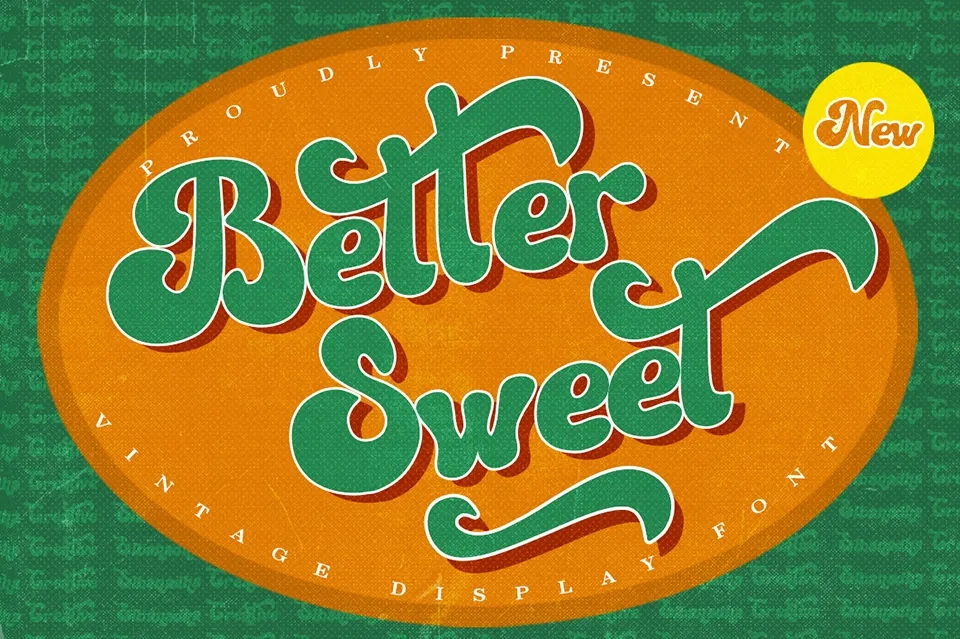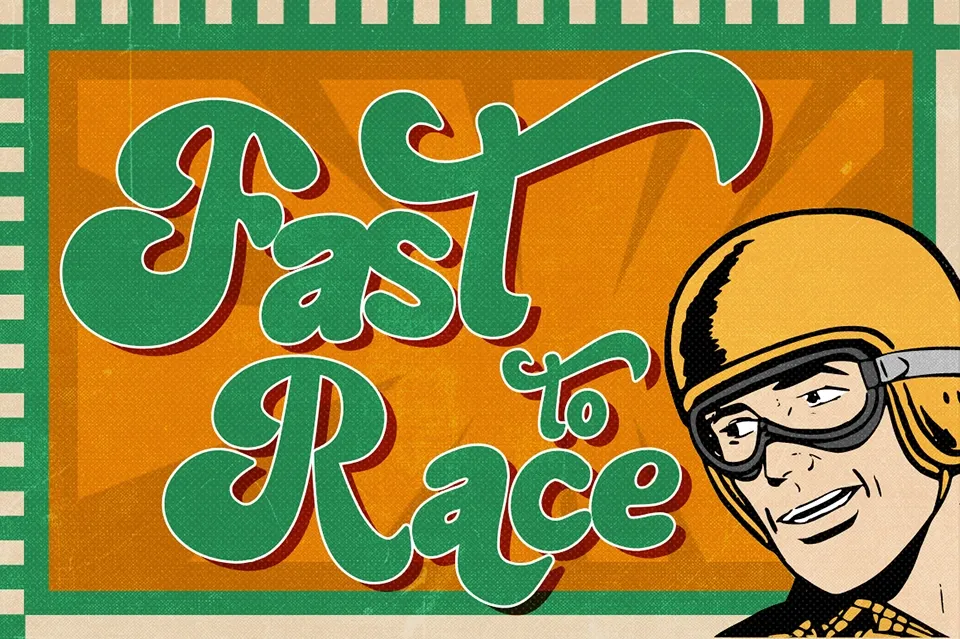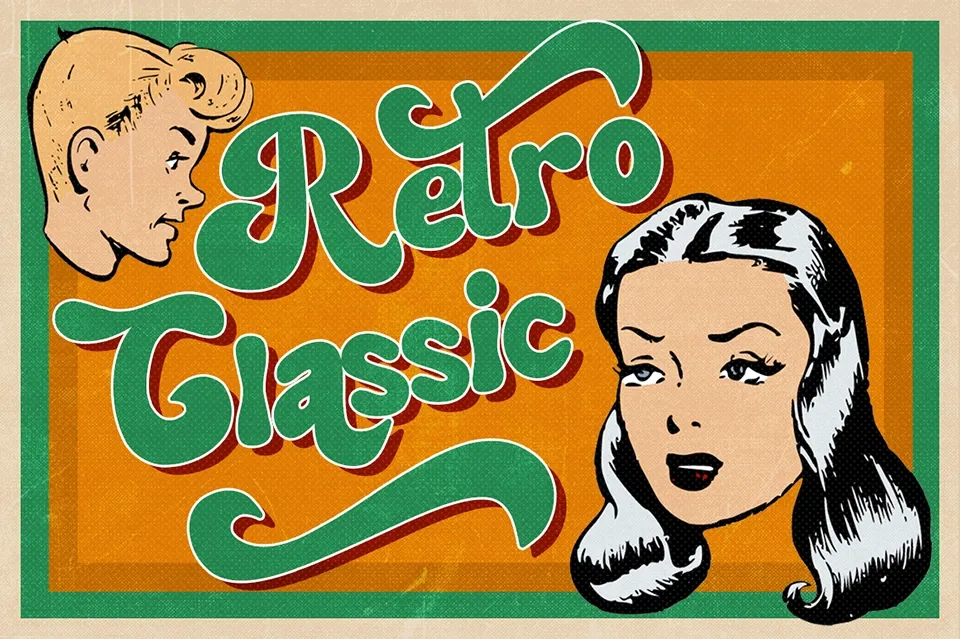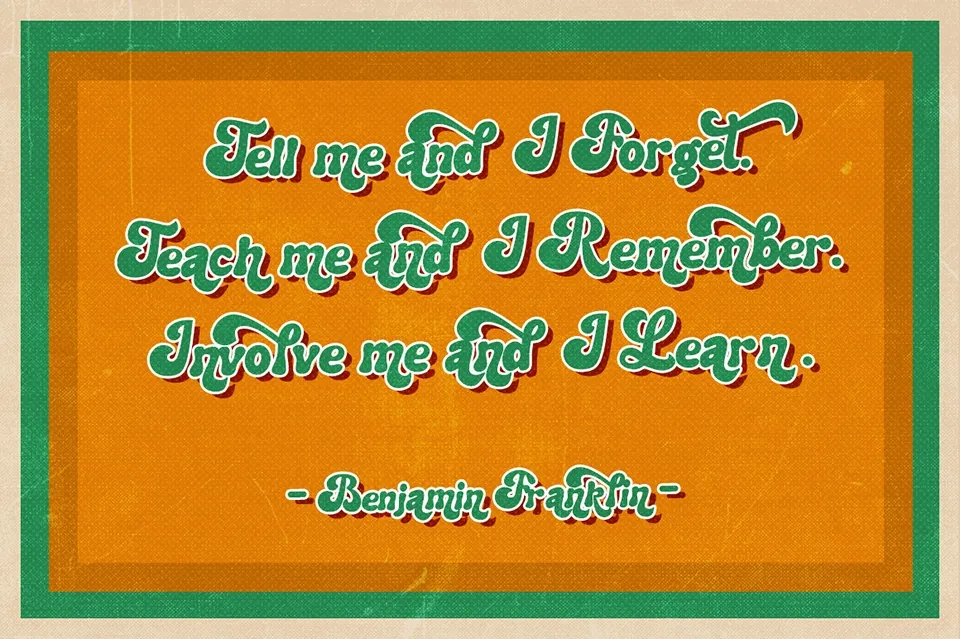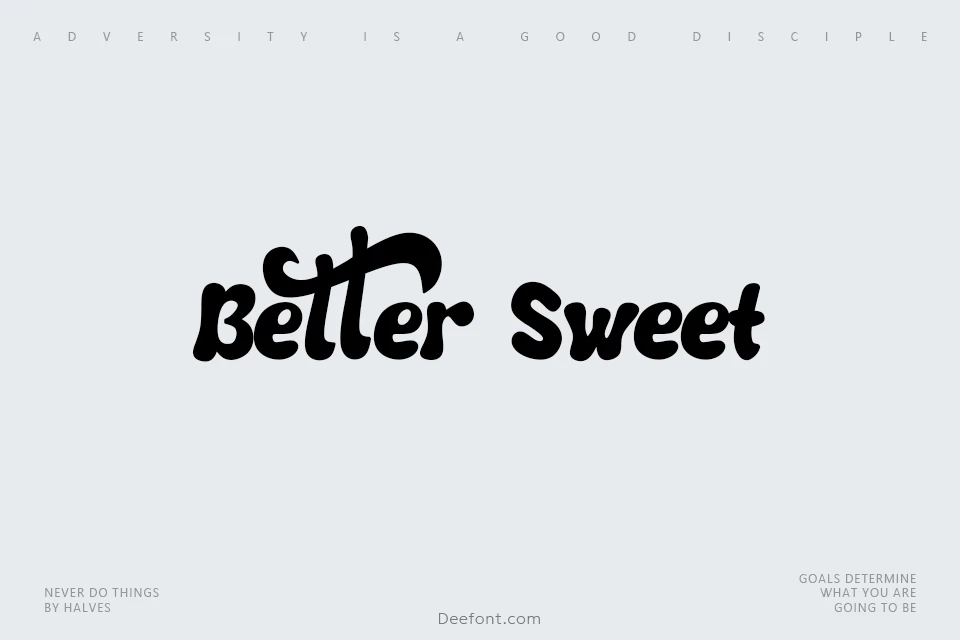
Better Sweet Font
Better Sweet Font is a bold and playful vintage display font that brings a retro charm to any design project. With its curvy, exaggerated letterforms and smooth swashes, it exudes personality and energy, making it ideal for logos, posters, packaging, and branding. The font’s nostalgic design is perfect for creating a warm, eye-catching aesthetic that stands out. Its versatility allows for creative experimentation while maintaining a cohesive and stylish look. Whether used for bold headlines or decorative text, Better Sweet adds a touch of uniqueness and vibrancy, making it a great choice for designers seeking a retro-inspired yet modern typeface.